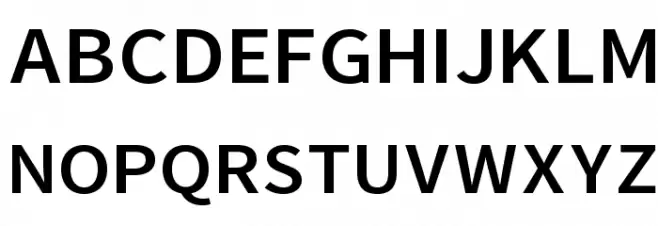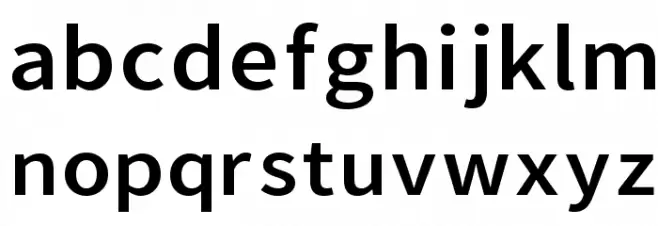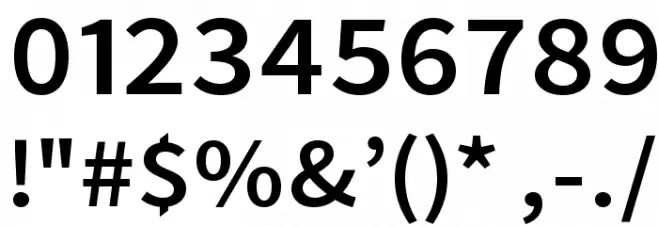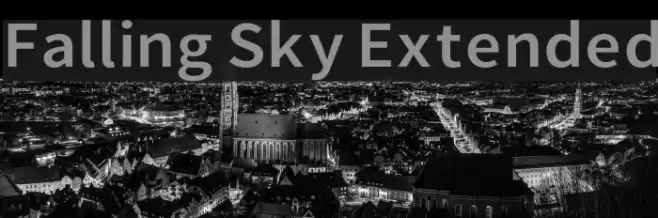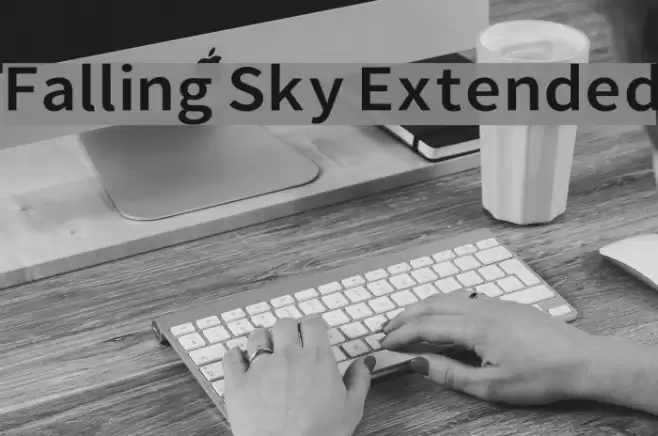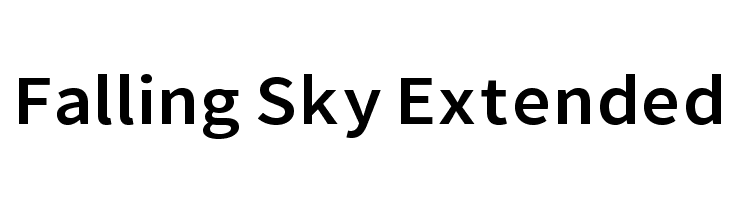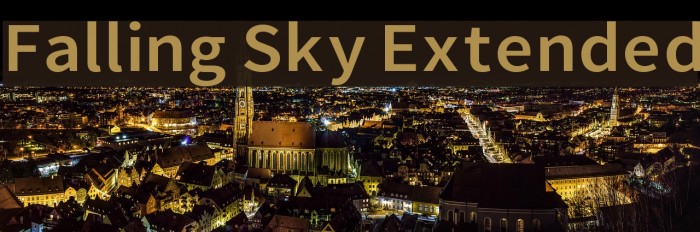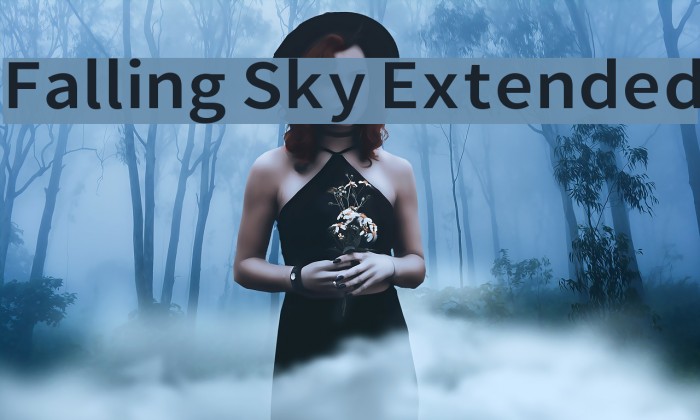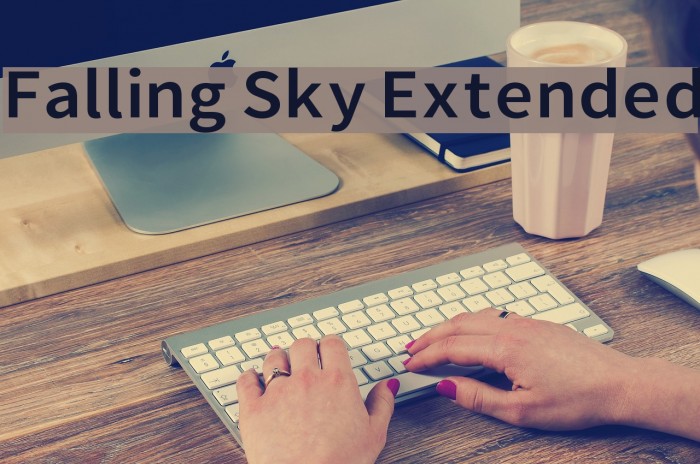
Falling Sky Extended
This font features a clean and modern sans-serif style with a straightforward and geometric appearance. The characters are well-proportioned, offering a balanced and uniform look across both uppercase and lowercase letters. The numerals are clear and distinct, making them easily readable. Special characters are designed with simplicity in mind, maintaining the overall aesthetic of the font. The strokes are consistent in weight, providing a cohesive and harmonious visual experience. This font is versatile, suitable for a wide range of applications from digital to print media.
A modern, geometric sans-serif font with clean lines and balanced proportions.
- Proposed Projects: Ideal for web design, branding, advertising, and editorial use.